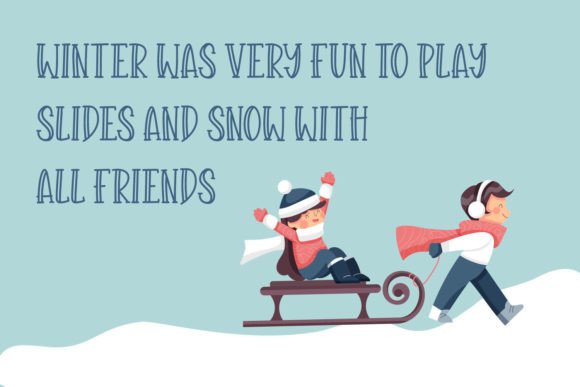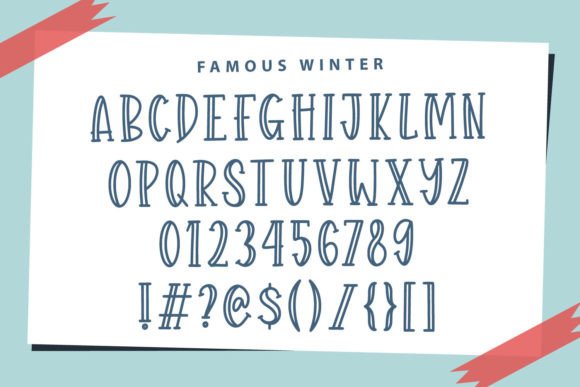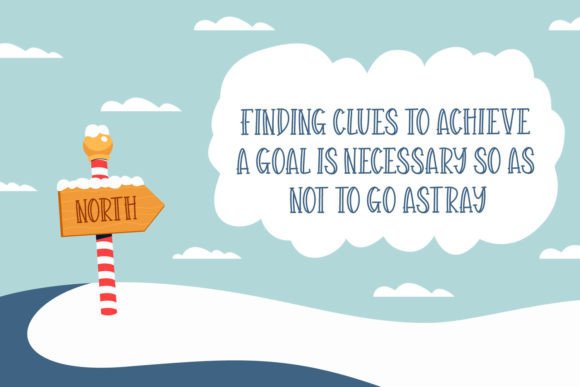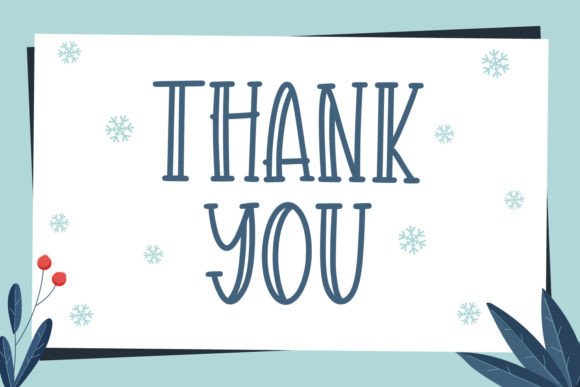
Famous Winter Font: The Perfect Addition to Your Design Arsenal
As the winter season approaches, designers and crafters are on the lookout for fonts that evoke a sense of warmth and coziness. If you’re searching for a font that embodies the spirit of winter while being versatile and user-friendly, look no further than the Famous Winter Font. In this article, we’ll dive into the characteristics of this charming font and explore how it can elevate your designs, from logos and branding to social media and DIY projects.
What is Famous Winter Font?
Famous Winter is a cute and casual handwritten font that exudes an incredibly friendly feel. Its unique charm lies in its ability to strike a balance between playfulness and sophistication, making it an excellent choice for a wide range of design applications. Whether you’re working on a logo, branding materials, social media graphics, or crafty DIY projects, this font is sure to make your designs stand out.
Key Features of Famous Winter Font
• Cute and Casual: The font’s handwritten style gives it a personal and approachable feel, perfect for designs that require a touch of warmth and personality.
• Friendly Feel: The characters in Famous Winter Font are designed to be welcoming and engaging, making it ideal for brands that want to establish a connection with their audience.
• Versatile: This font is incredibly versatile and can be used across various design projects, from professional branding to personal DIY crafts.
• Easy to Read: Despite its casual nature, Famous Winter Font remains highly legible, ensuring that your message is communicated clearly and effectively.
Using Famous Winter Font in Your Designs
The versatility of Famous Winter Font makes it suitable for a myriad of design projects. Here are some ways you can incorporate this delightful font into your work:
Logos and Branding
For businesses looking to create a friendly and approachable brand image, Famous Winter Font can be a great choice for logos and branding materials. Its unique style can help your brand stand out and make a memorable impression on customers.
Social Media Graphics
In the realm of social media, where engaging and eye-catching content is key, Famous Winter Font can help you create graphics that capture attention and foster engagement. From Facebook posts to Instagram stories, this font can add a personal touch to your social media presence.
Crafty DIY Projects
Crafters and DIY enthusiasts will love using Famous Winter Font in their projects, such as handmade cards, scrapbooking, and craft tutorials. The font’s friendly feel and casual style can add a charming touch to any DIY project.
Tips for Getting the Most Out of Famous Winter Font
• Mix and Match: Don’t be afraid to experiment by pairing Famous Winter Font with other fonts to create interesting contrasts and hierarchies in your designs.
• Play with Colors: The font’s versatility extends to its compatibility with various color schemes. Feel free to experiment with different colors to find the perfect match for your design.
• Adjust Size and Weight: Depending on your design needs, you can adjust the size and weight of the font to emphasize certain elements and create visual interest.
Famous Winter Font is more than just a font; it’s a design tool that can bring warmth, personality, and friendliness to your projects. Whether you’re a designer working on professional branding or a crafter creating DIY projects, this font offers the versatility and charm you need to make your designs shine. With its cute and casual handwritten style, friendly feel, and ease of use, Famous Winter Font is sure to become a favorite in your design arsenal.